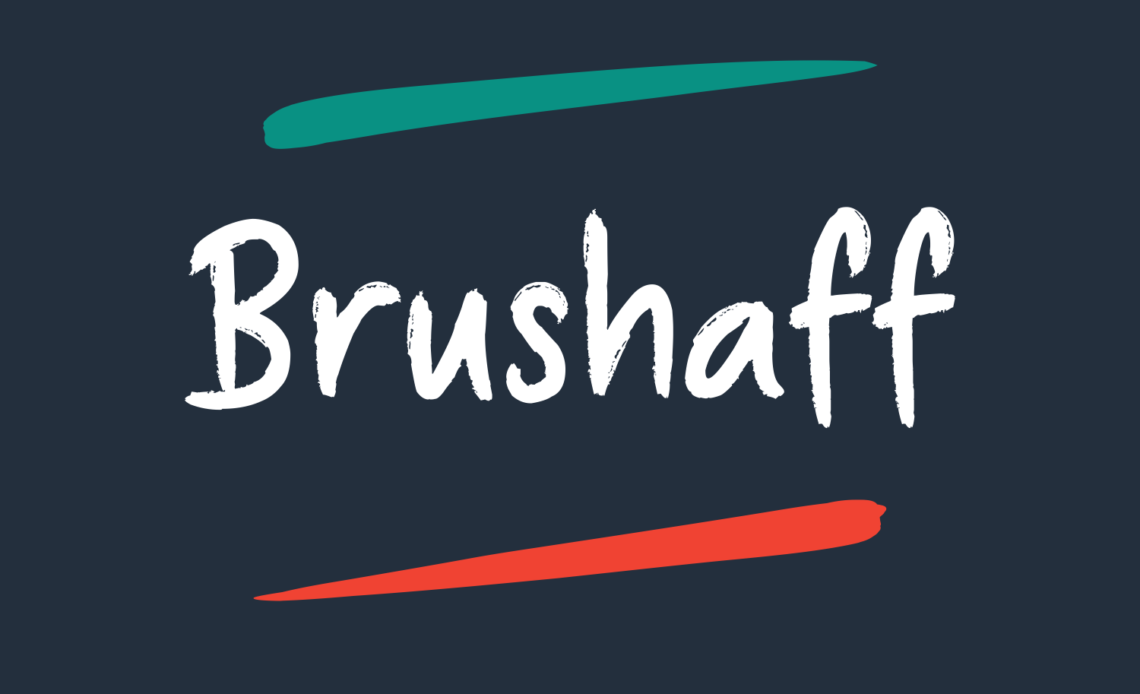
Dive into the world of expressive typography with Brushaff Font, a captivating display font that exudes a raw, eroded elegance. Crafted by the talented Situjuh, Brushaff's unique aesthetic is sure to leave a lasting impression.
Let your designs radiate with a touch of rugged charm and artistic flair. Brushaff's eroded texture adds depth and character to every letterform, evoking a sense of authenticity and handcrafted beauty. Whether you're crafting logos, posters, branding materials, or social media graphics, Brushaff will effortlessly elevate your designs to new heights.
Embrace the freedom of creative expression with Brushaff's versatile personality. Its eroded details lend an organic, handwritten feel, making it perfect for conveying a personal touch in your designs. From bold headlines to delicate subtext, Brushaff adapts seamlessly to a wide range of design projects.
With Brushaff at your fingertips, you'll discover endless possibilities to express your creativity. Its captivating texture adds a touch of intrigue and visual interest, making your designs stand out from the crowd. Let Brushaff be your artistic partner, guiding you towards distinctive and memorable design outcomes.
Don't settle for ordinary fonts that blend in. Embrace the allure of Brushaff Font, where every letterform tells a story. Its eroded charm and expressive character will transform your designs into works of art. Unleash your imagination and experience the transformative power of Brushaff today!